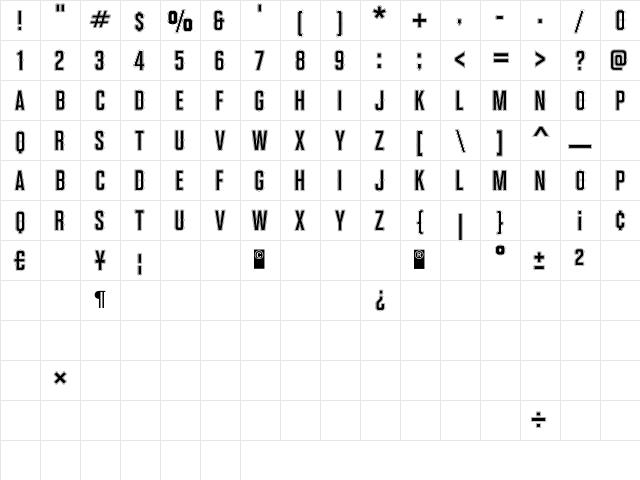
RazorFace Regular Free Font
RazorFace Regular
Copyright: Razor Face care of the guys who design music album artwork. Originally produced as photolettering as Scott Gothic care of Dan X Solo.
Foundry: Steve (Sleepy Gecko) Harrison
Designer: The Madman Across The Water
Design Context for RazorFace
RazorFace is a composed and adaptable typeface that performs quietly and consistently across a wide range of design contexts.